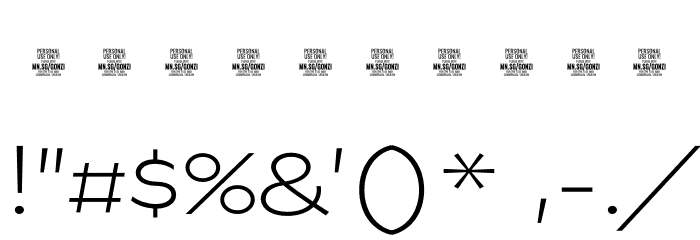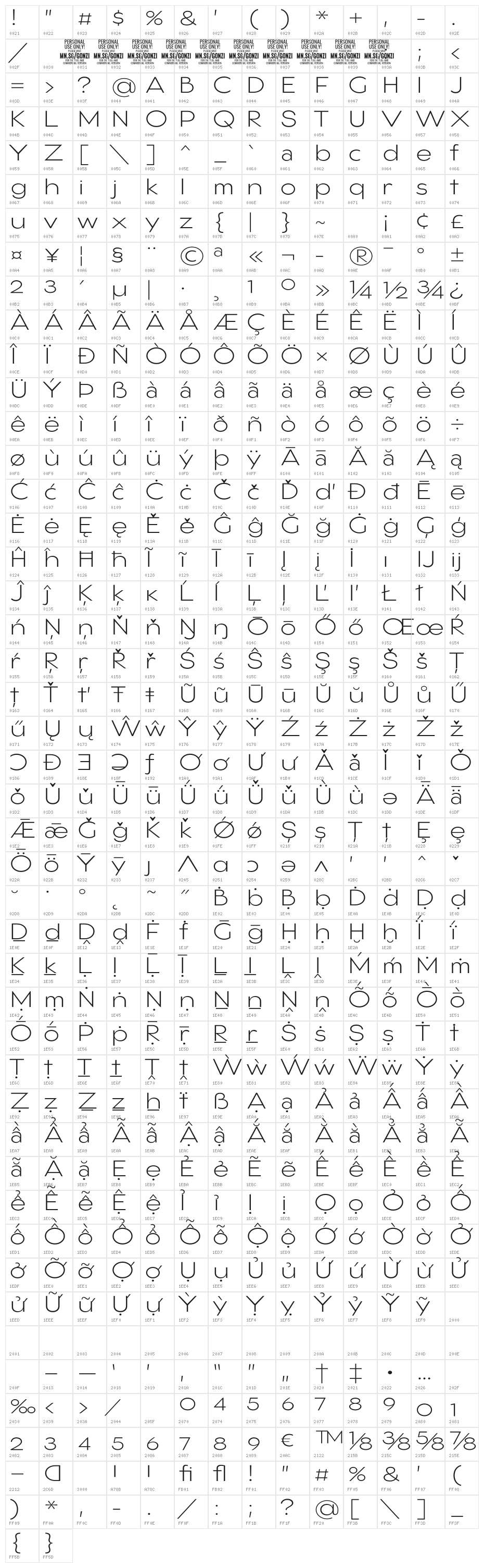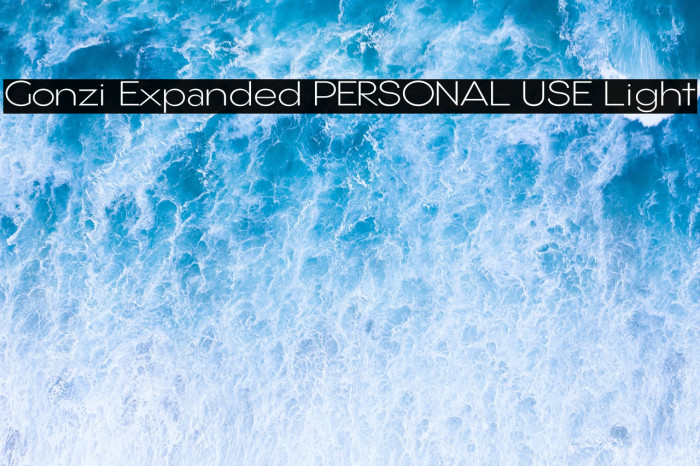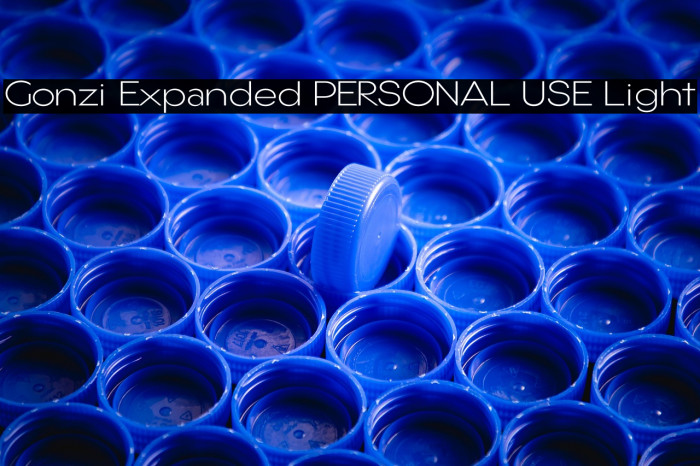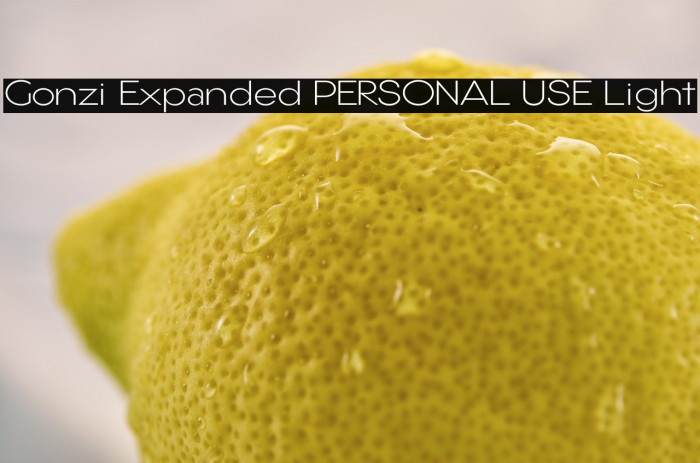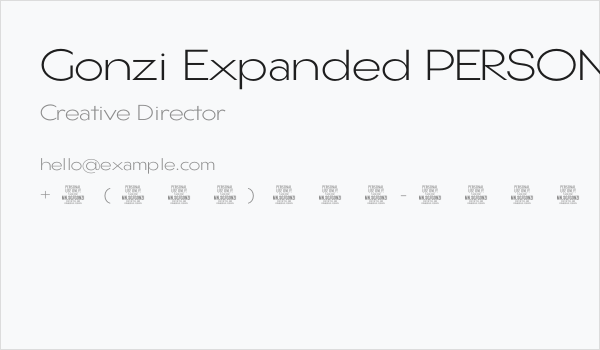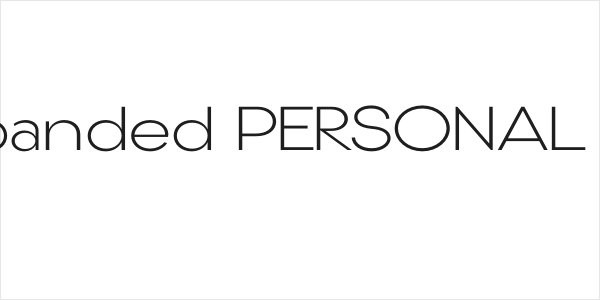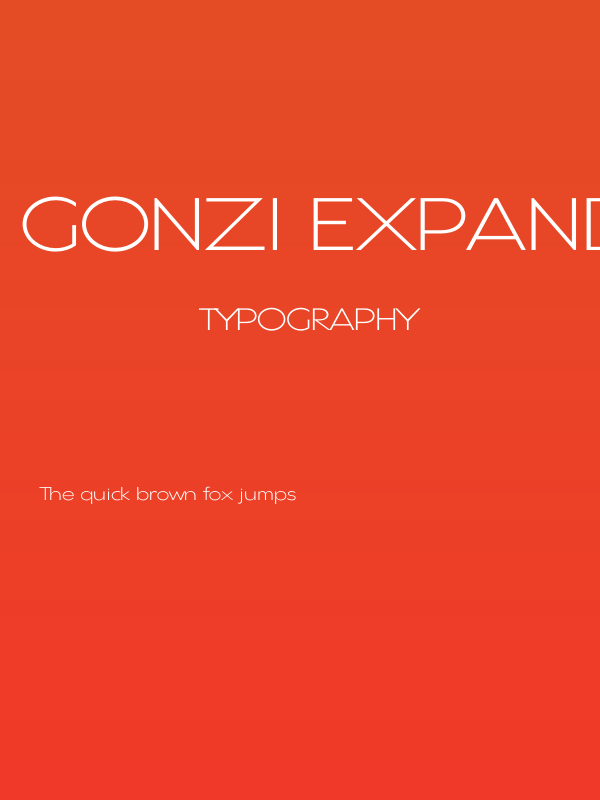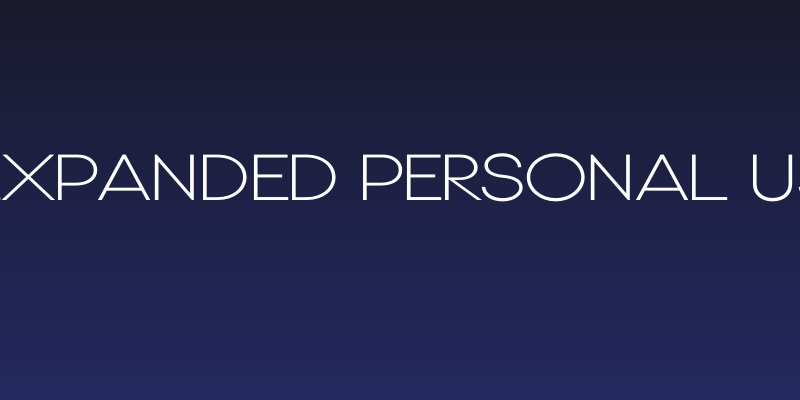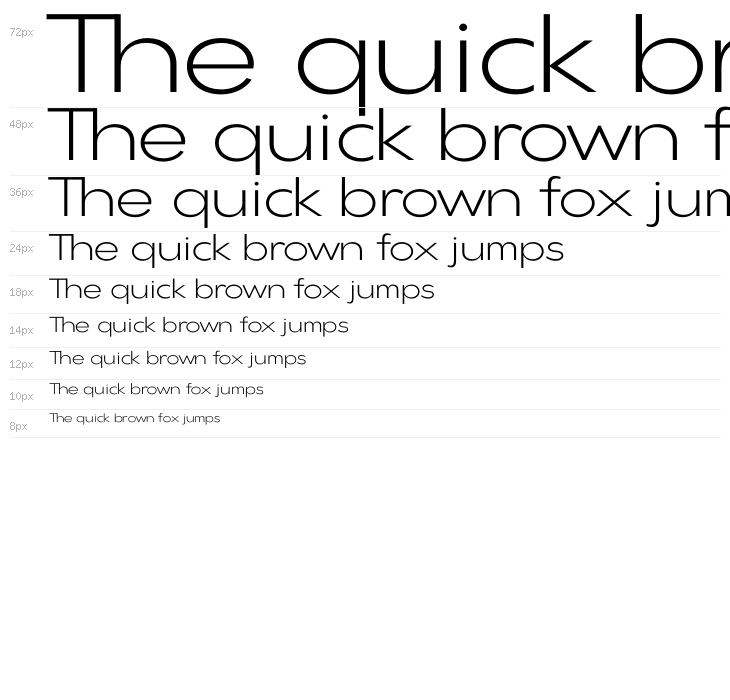
Gonzi Expanded PERSONAL USE Light Font
Gonzi Expanded PERSONAL USE Light Description
This font features a clean and modern design with an expanded width, giving it a spacious and airy feel. The characters are crafted with precision, showcasing a geometric and minimalist aesthetic. The uppercase and lowercase letters maintain a consistent stroke weight, contributing to a harmonious and balanced appearance. The numerals and special characters are designed to complement the overall style, ensuring readability and versatility. Its light weight adds elegance, making it suitable for a variety of design applications.